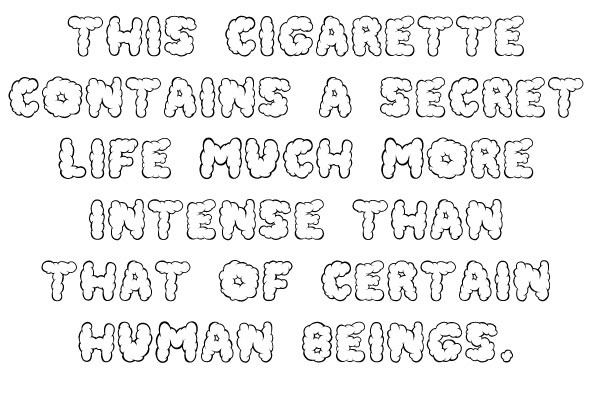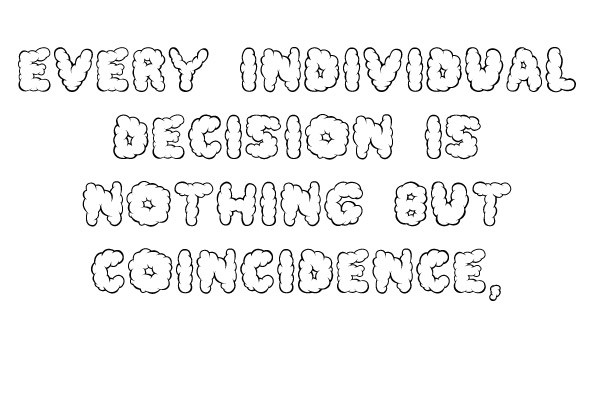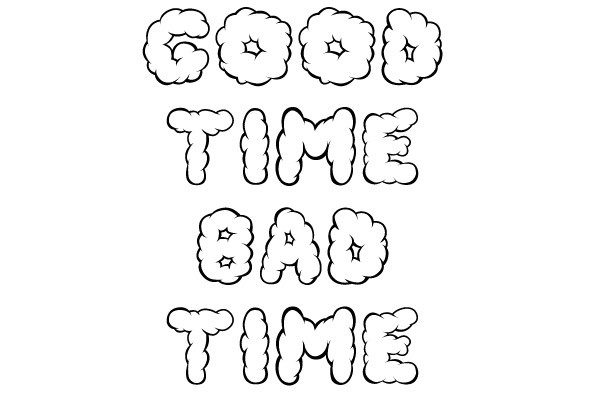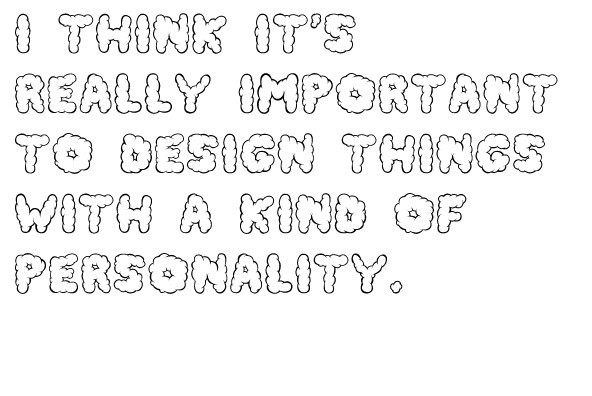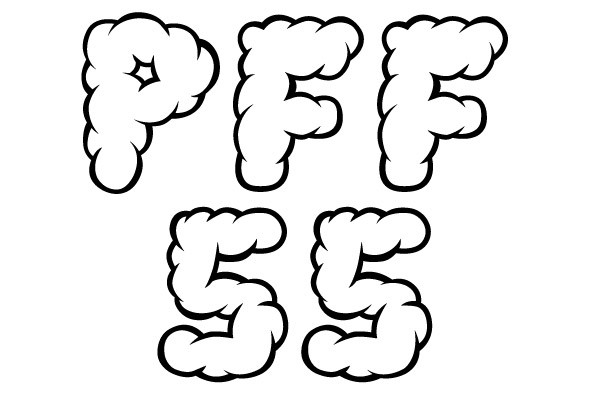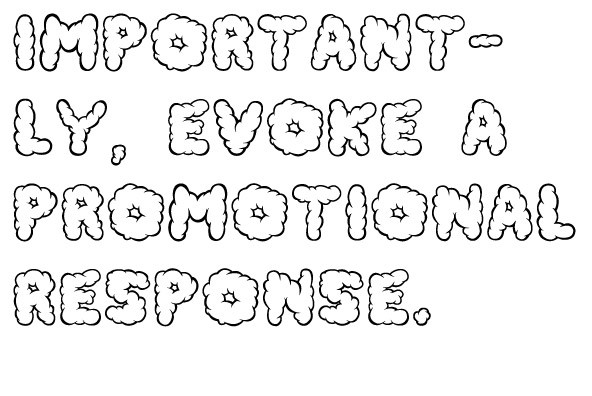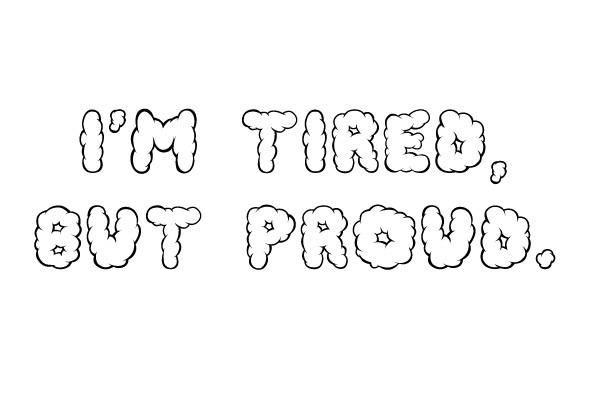
DustUp Font
Dustup
This face was created for Volumeone's 25th season, Brutal Honesty, by Matt Owens. This one weight display typeface contains all capital letters, numbers and punctuation.
Matt Owens is the principal of Brooklyn based design studio Volumeone established in 1997. The experimental portion of volumeone.com is updated several times a year, featuring conceptual narratives and personal visual work. These explorations help show prospective clients the studio's wide range of visual and...